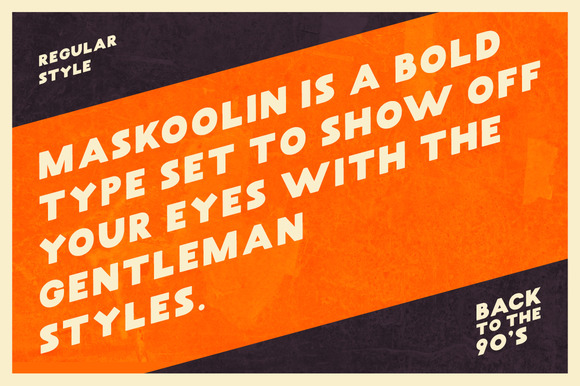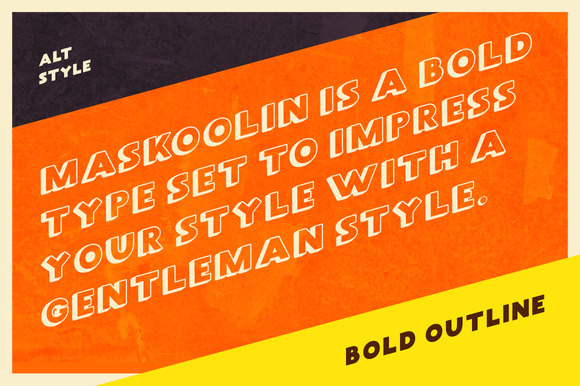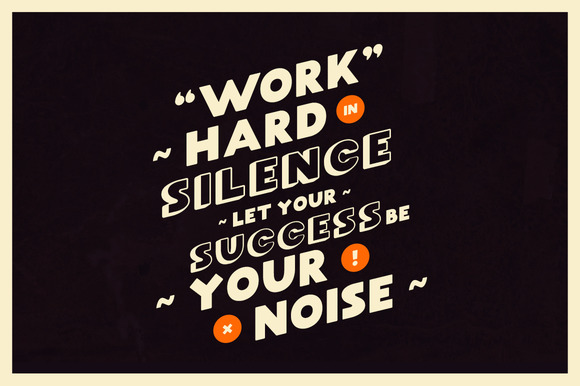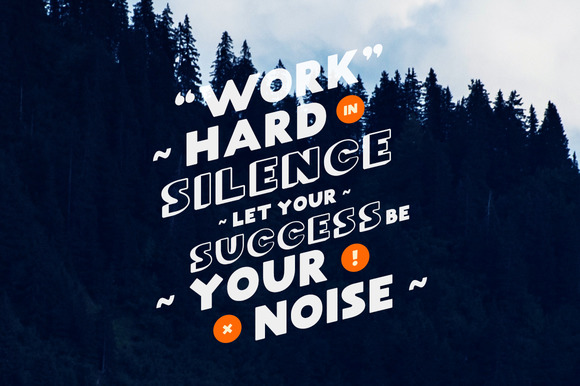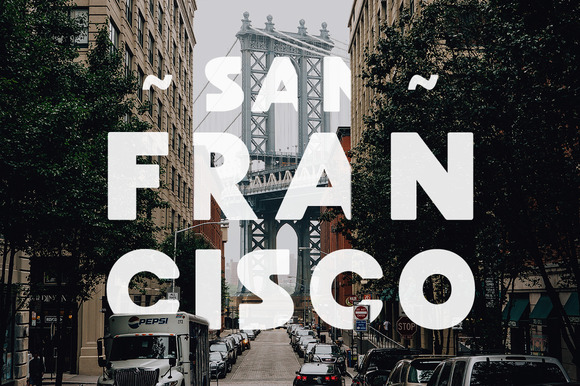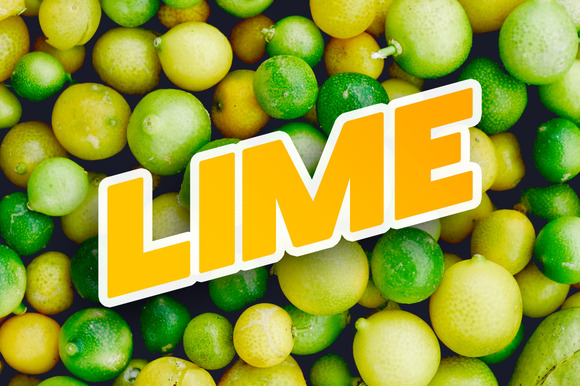
Introduction to Maskoolin Font Font
Fonts play a crucial role in design, and the Maskoolin Font font is a typeface that brings both character and versatility to any project. Whether you’re working on a branding project, a website, or a print design, the Maskoolin Font font offers a unique style that can elevate your work.
| 📌 Font Name | Maskoolin Font |
| 👤 Author | Ease Type |
Maskoolin is a strong font that is made to leave an impression.
Key Features of Maskoolin Font Font
Why Choose Maskoolin Font Font?
The Maskoolin Font font is more than just a typeface – it’s a design tool that helps you communicate your message with style and clarity. Its unique character set and versatile design make it suitable for a wide range of applications, from elegant invitations to bold headlines.
With its carefully crafted letterforms and balanced proportions, the Maskoolin Font font ensures readability and visual appeal across all mediums.
What makes Maskoolin Font font special?
The Maskoolin Font font stands out with its unique design, exceptional readability, and versatility across various design applications.